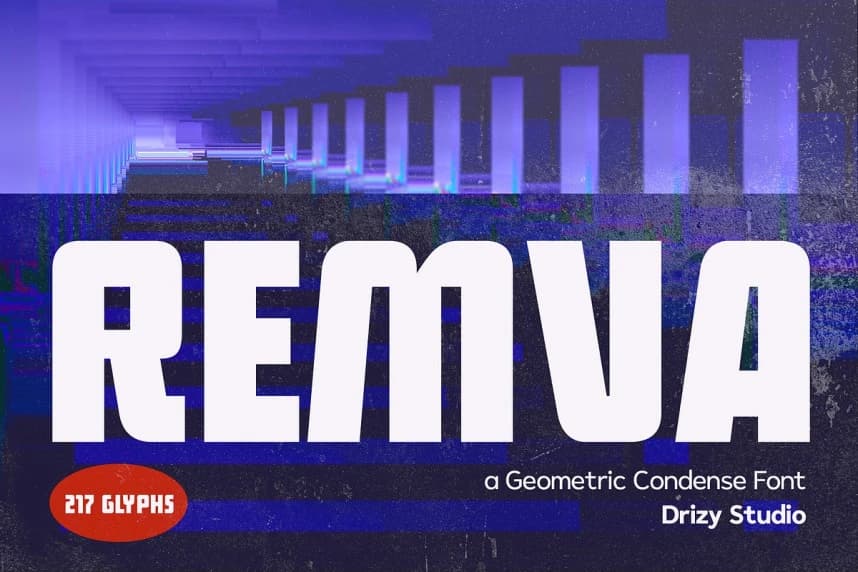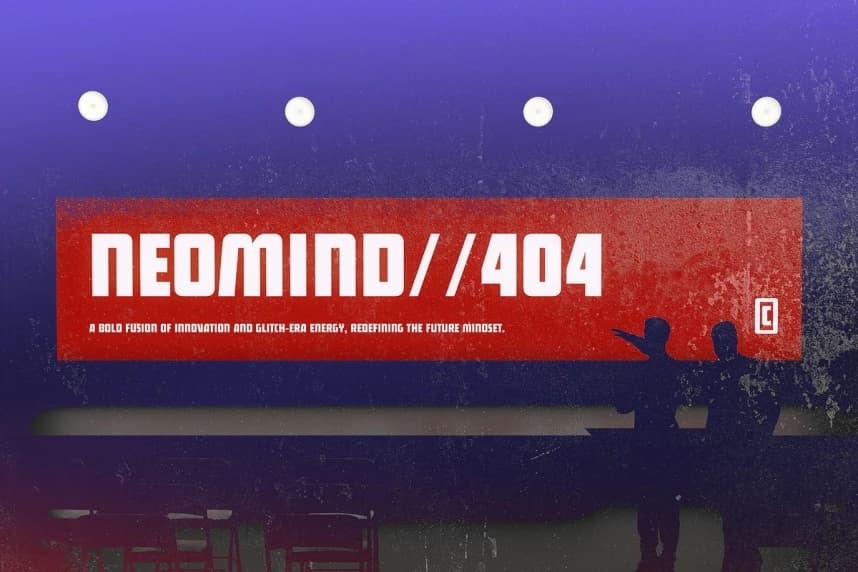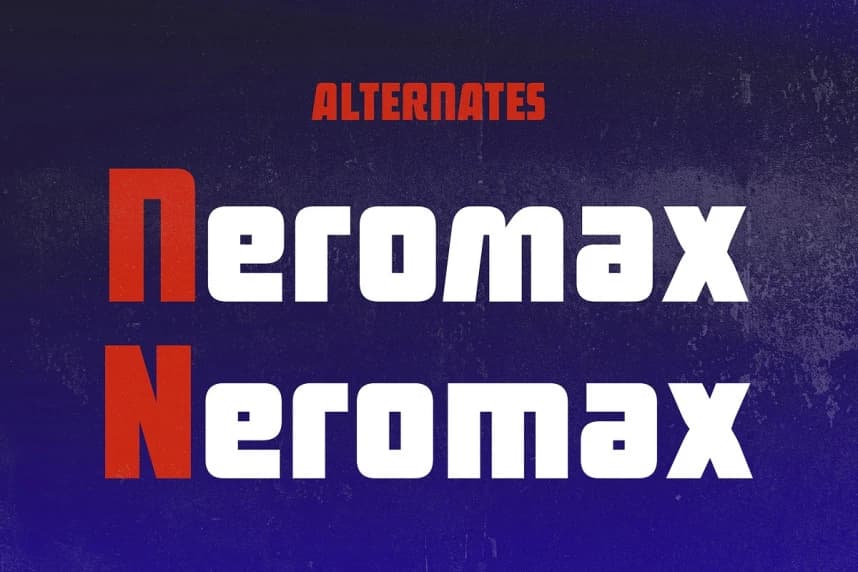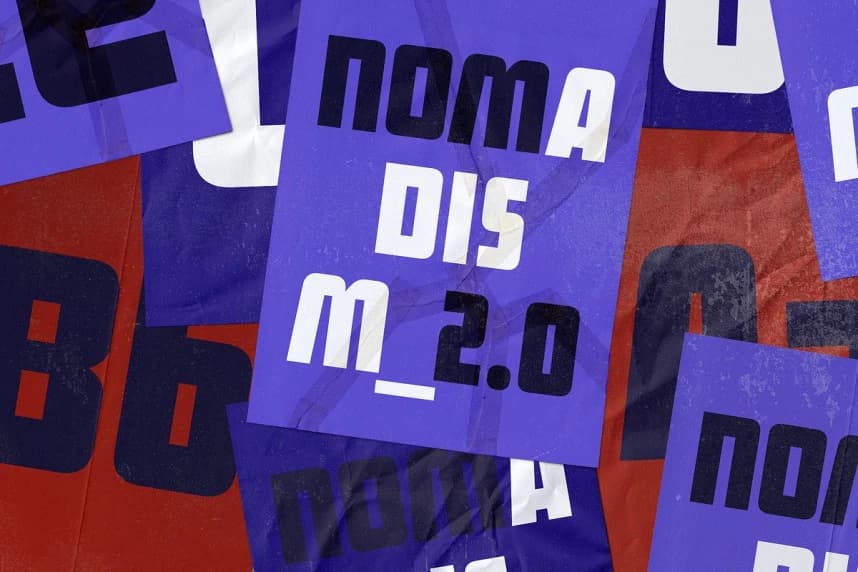
Remva Font
Remva Font is a modern geometric condensed font designed to deliver a strong and clean visual impact. With its sleek proportions and structured letterforms, Remva is perfect for headlines, branding, posters, sports designs, editorial layouts